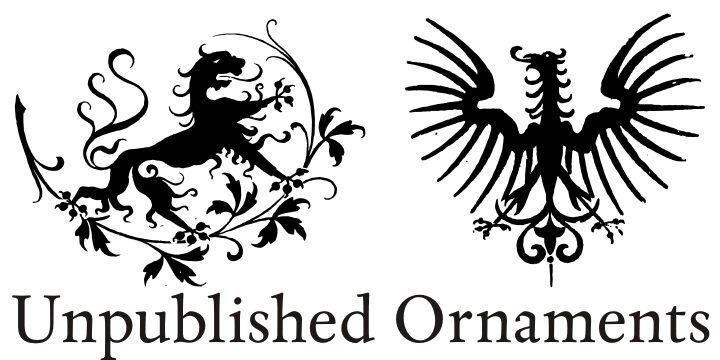
Unpublished Ornaments by Paulo W. is a free decorative dingbat font of elaborate flourishes and emblem-like motifs. Interlaced ribbons, scrolling curls, knotted hearts, and symmetrical crests give the collection a formal, tattoo-influenced character. Designs range from compact medallions to broad dividers and winged silhouettes.
Designers working on romantic or ceremonial material will find useful ornaments for invitations, event posters, and editorial pages. On packaging, the woven hearts and crest forms can become memorable product emblems.
Unpublished Ornaments by Paulo W. is a decorative dingbat font.